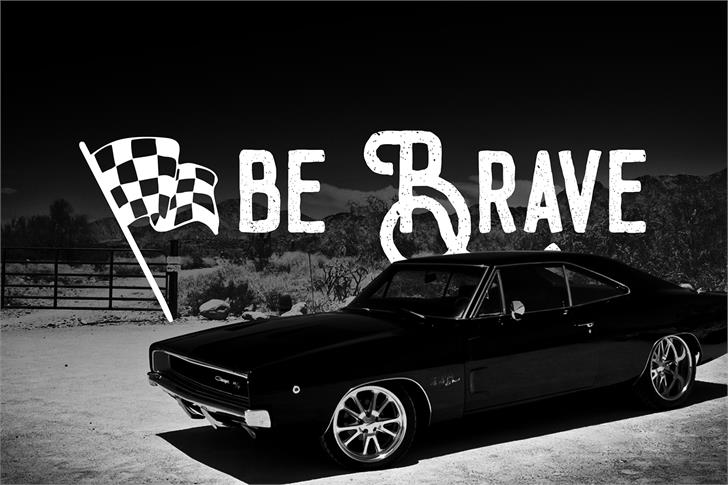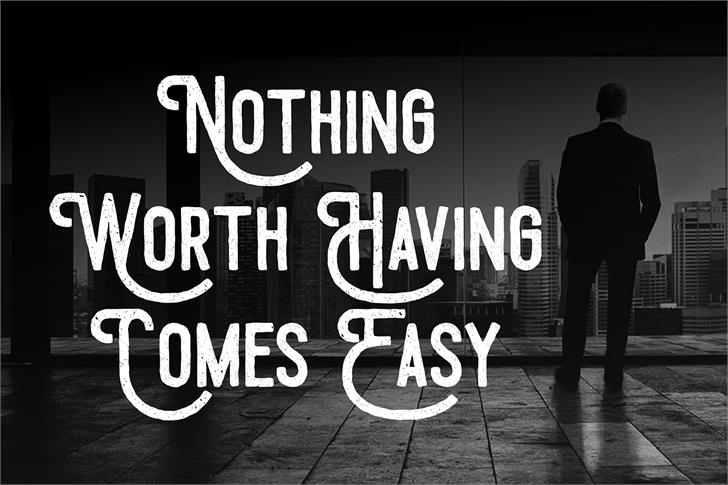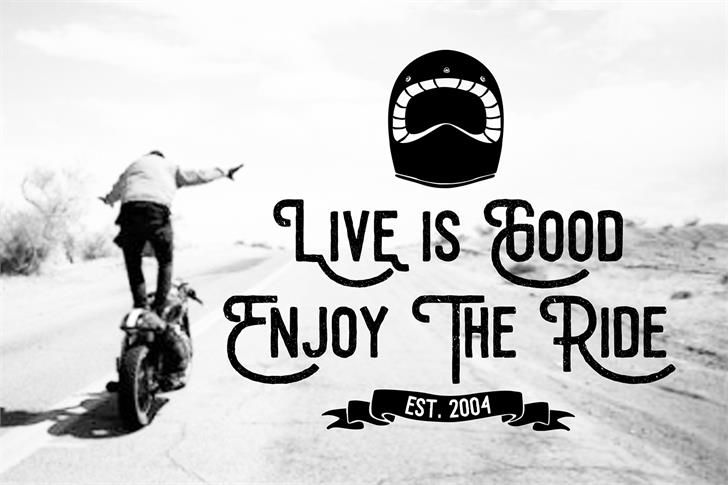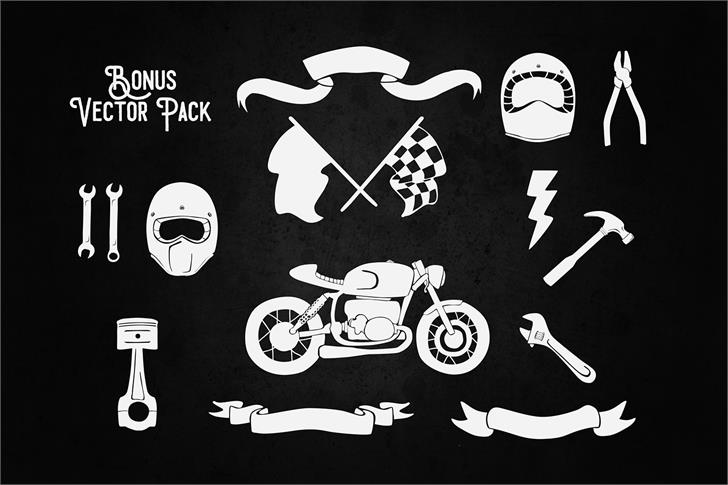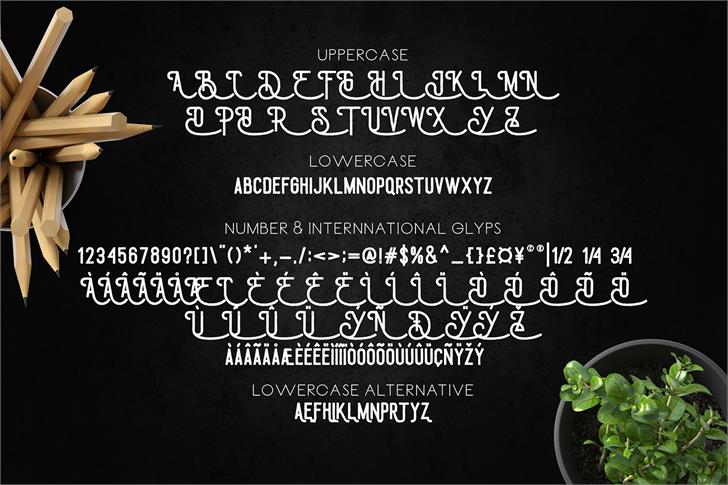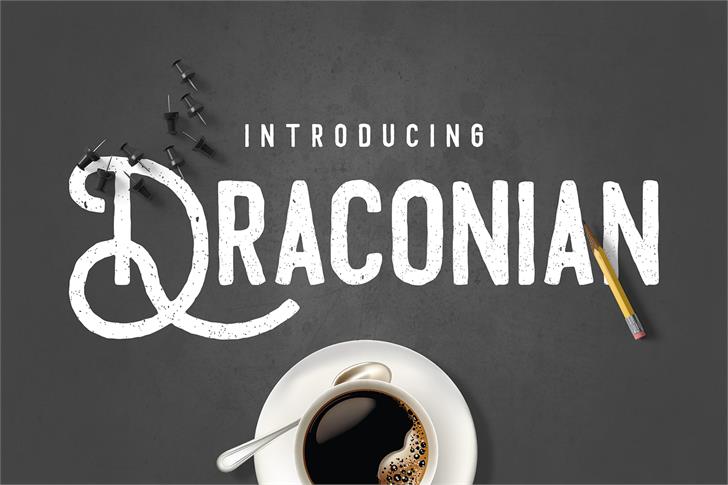
Draconian Typeface
Draconian font
Hello I’m really excited to introduce Draconian with vintage american style font with cool character! Draconian perfect for poster design, book covers, merchandise, fashion campaigns, newsletters, branding, advertising, magazines, greeting cards, album covers, and quote designs and more.